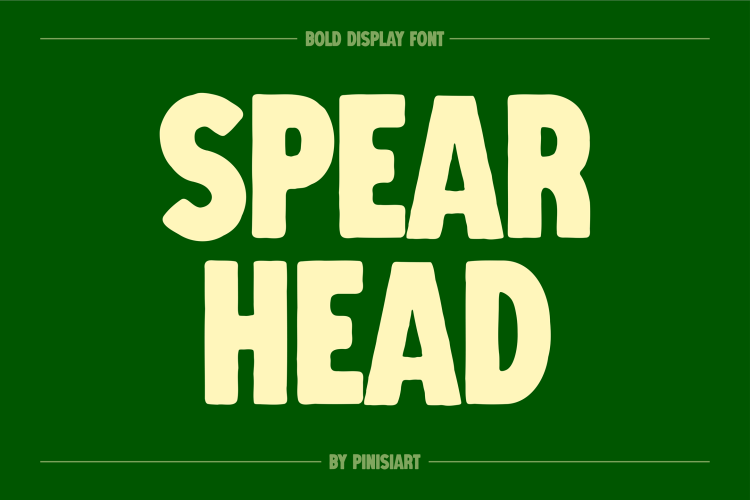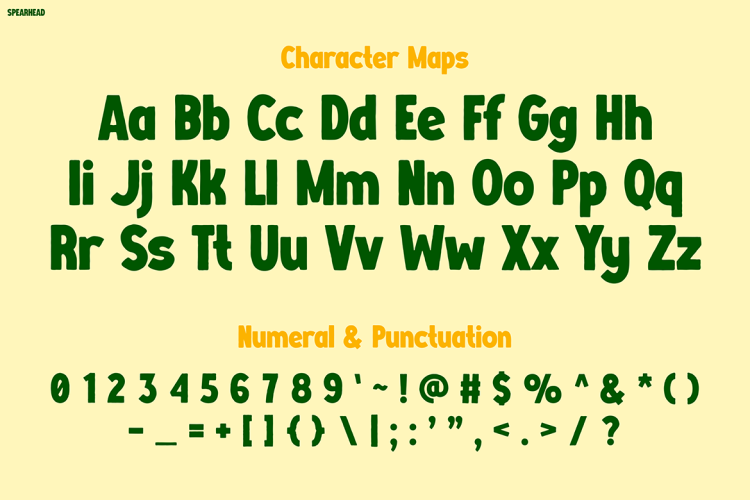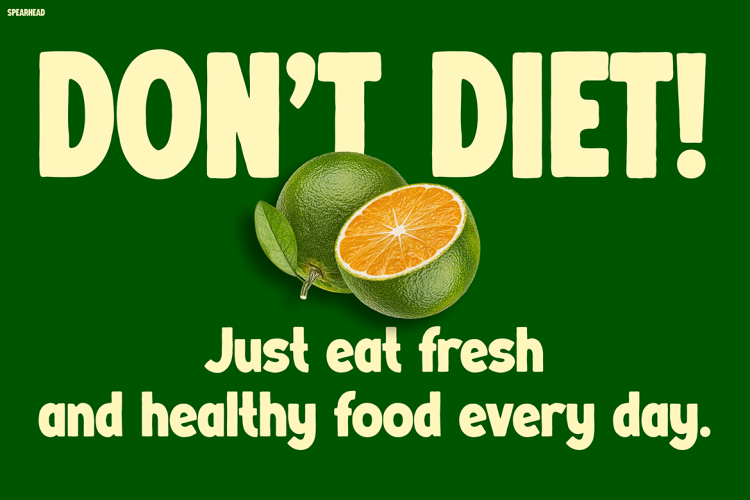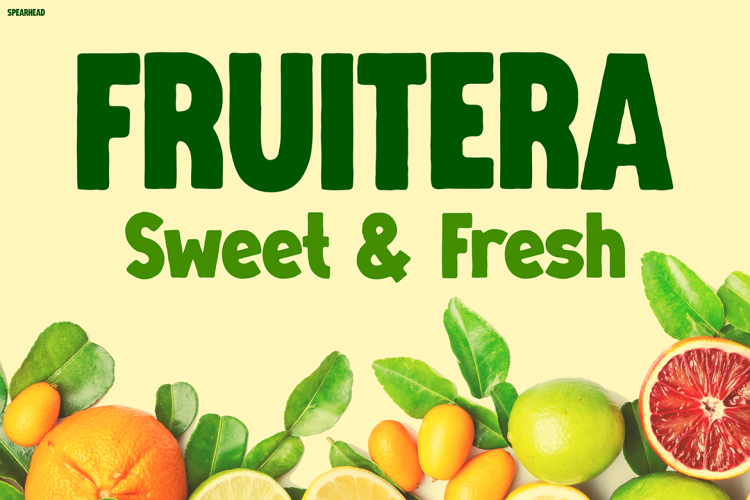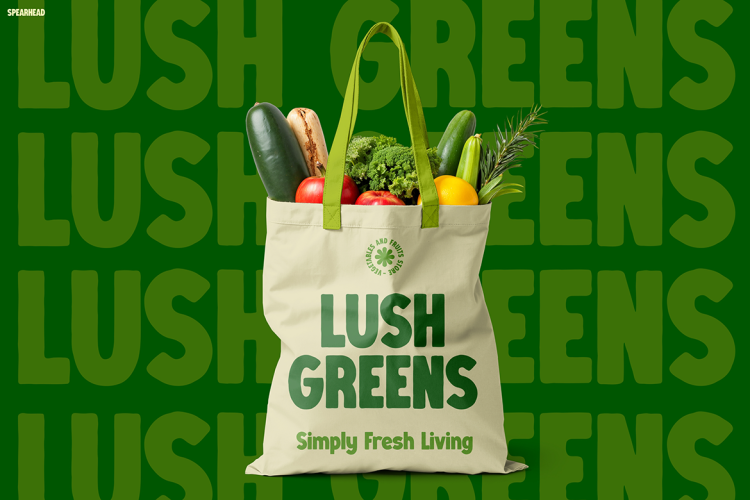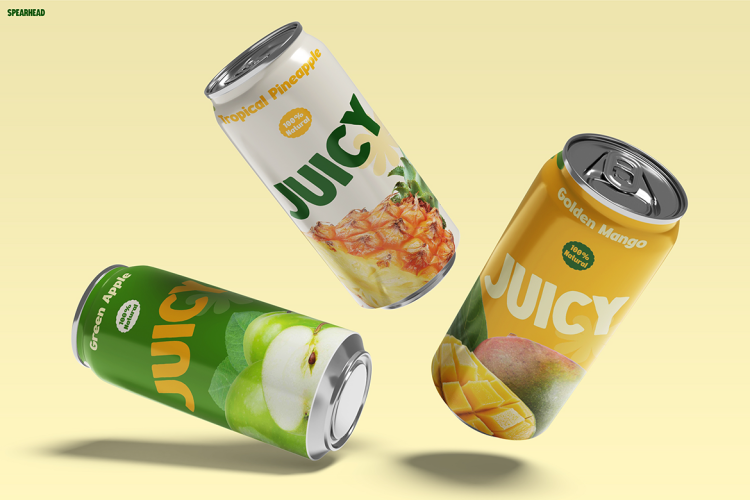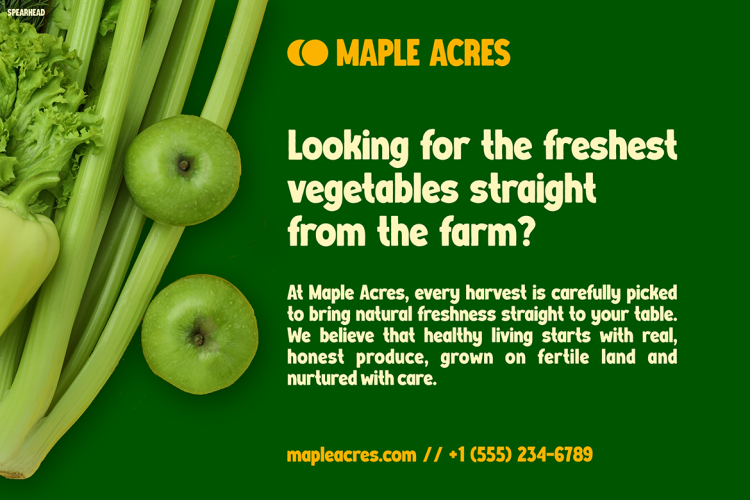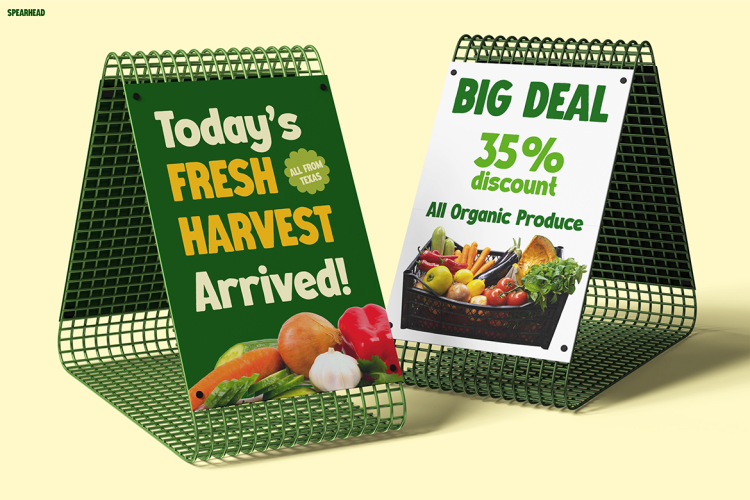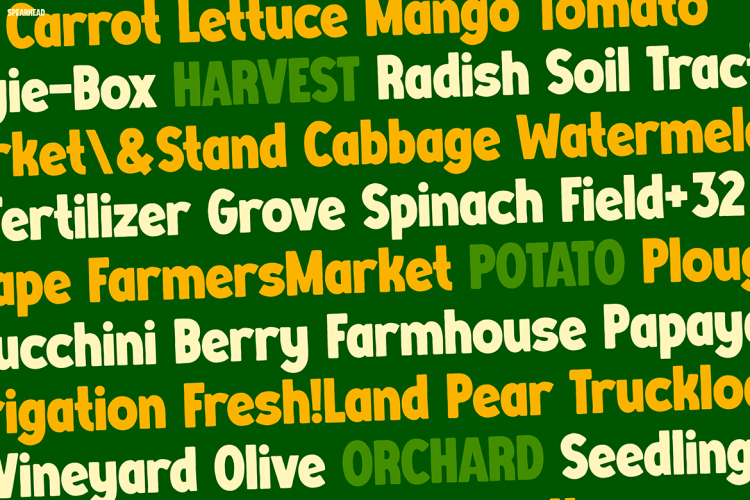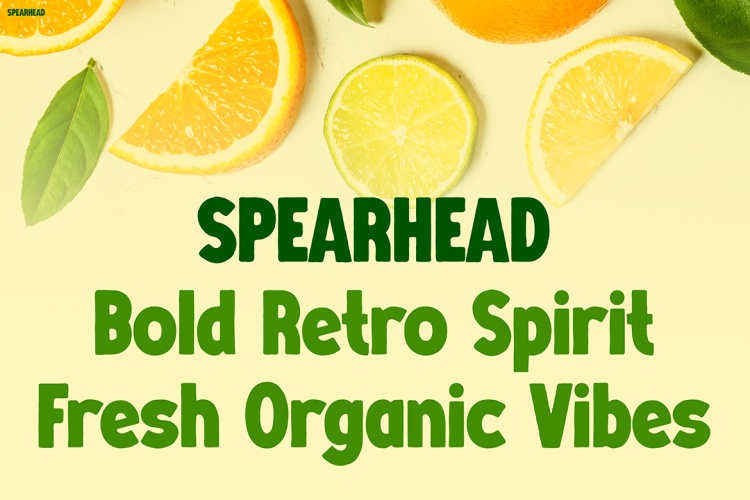
Retro Font SPEARHEAD โ Bold, Fresh, and Full of Character
Retro Font SPEARHEAD is more than just typography โ itโs a vibrant design tool built to capture attention instantly. With its bold strokes, organic letterforms, and retro-inspired aesthetic, this font bridges the gap between nostalgic vibes and modern branding. The playful yet structured look makes every word pop with confidence, while still keeping a friendly, approachable tone. Its versatility shines through in the way it brings energy to product packaging, posters, advertisements, and lifestyle branding. Whether youโre working on food labels, eco-friendly campaigns, or bold social media graphics, Retro Font SPEARHEAD delivers a unique visual punch that feels both retro and refreshingly new.
Perfect For Designers, Brands, and Creative Projects
Retro Font SPEARHEAD is the ideal choice for graphic designers, marketers, and brand owners who want to communicate freshness, energy, and trustworthiness. Its organic, retro-vintage style is especially suitable for:
Food & Beverage Brands โ Perfect for juice cans, organic snacks, restaurants, and cafes that want to look bold and natural.
Eco & Organic Products โ Bring a fresh, sustainable, and nature-inspired vibe to packaging and marketing.
Farmers Market Promotions โ Stand out with a bold, rustic typeface that speaks directly to freshness and quality.
Lifestyle & Health Brands โ Communicate vitality, positivity, and bold confidence in campaigns and product labels.
Advertising & Social Media Content โ Eye-catching typography that makes headlines, posters, and promotions impossible to ignore.
By combining retro aesthetics with modern readability, this font makes it easy to create designs that feel timeless yet relevant. The bold retro curves add character to every project, making it stand out across both digital and print platforms.
Why Choose SPEARHEAD?
Retro Font SPEARHEAD isnโt just another display typeface โ itโs a branding powerhouse. With its unique retro vibe, bold presence, and organic touch, it turns ordinary words into strong visual statements. If you want your projects to radiate freshness, energy, and memorable style, this font is the perfect creative weapon. Bring your designs to life, and let SPEARHEAD set the tone for impactful storytelling.